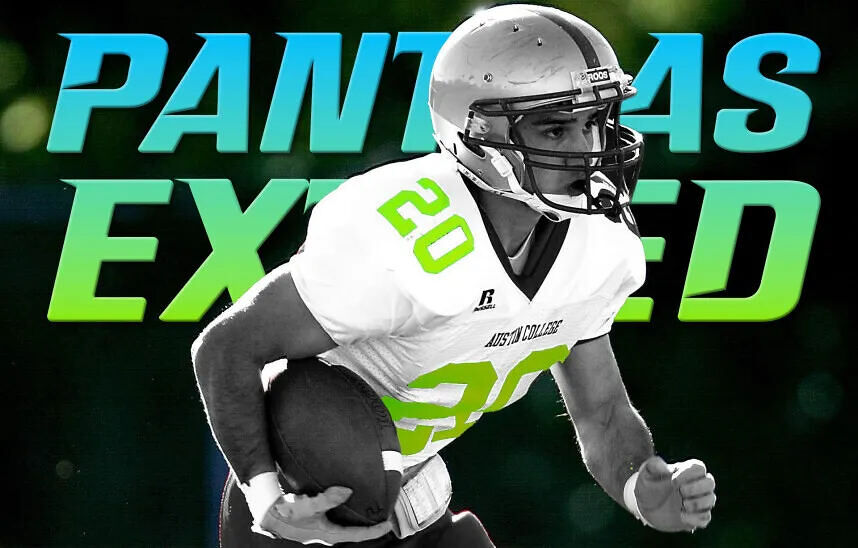
Pantha Extend Font
Pantha Extend is a font inspired by thew Carolina Panthers brand font. Ideal for use on sport uniforms, sport banners and futuristic headings.